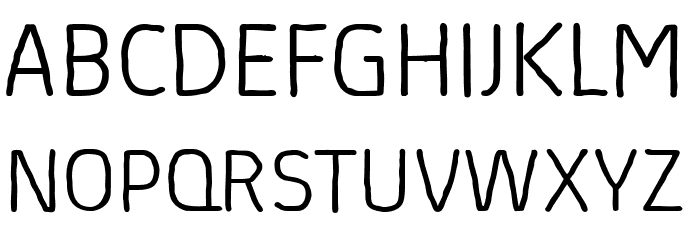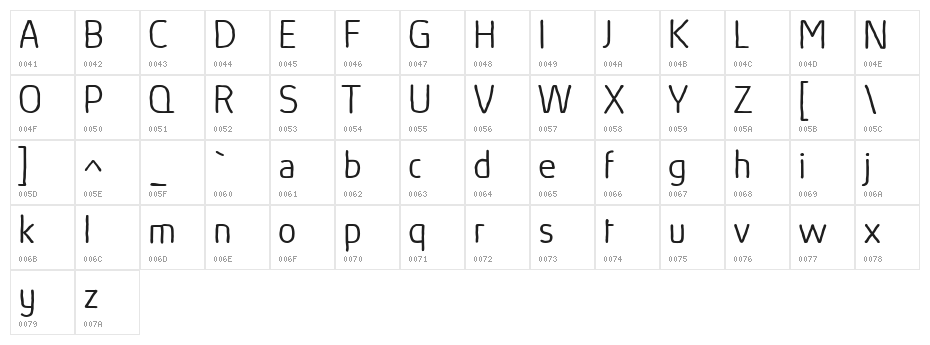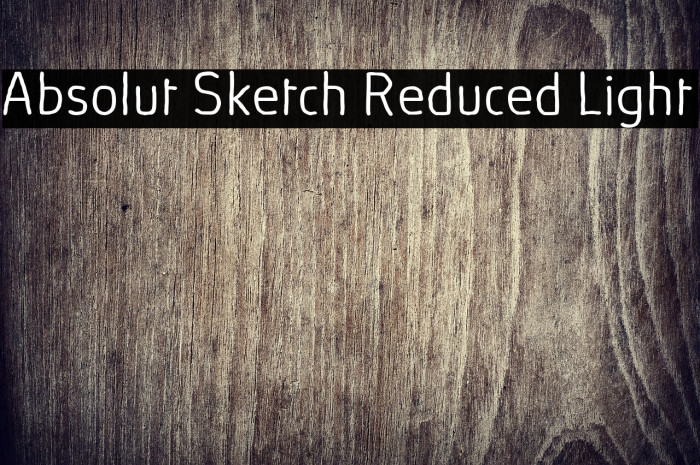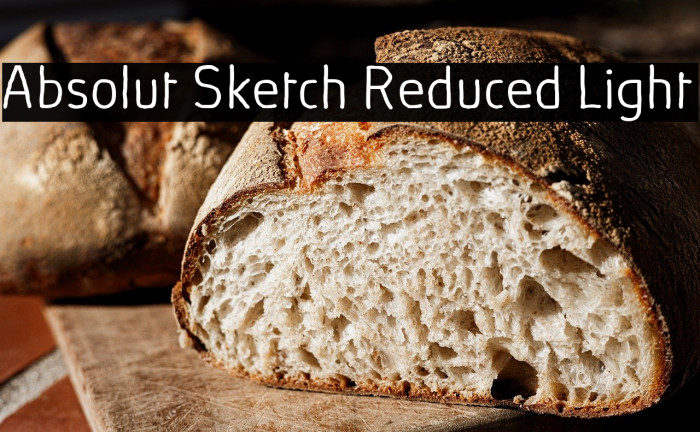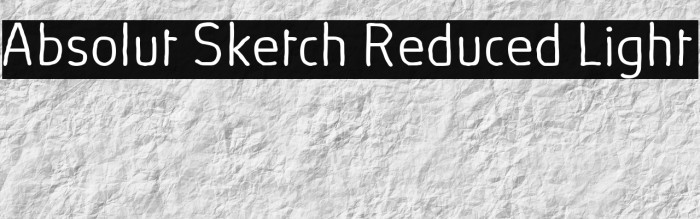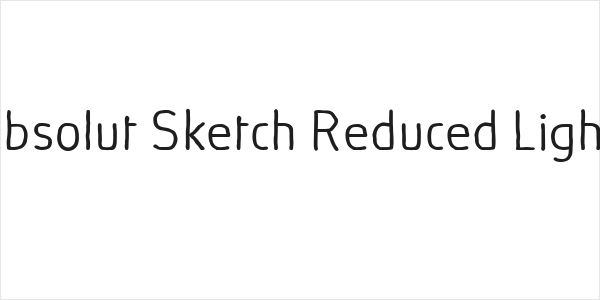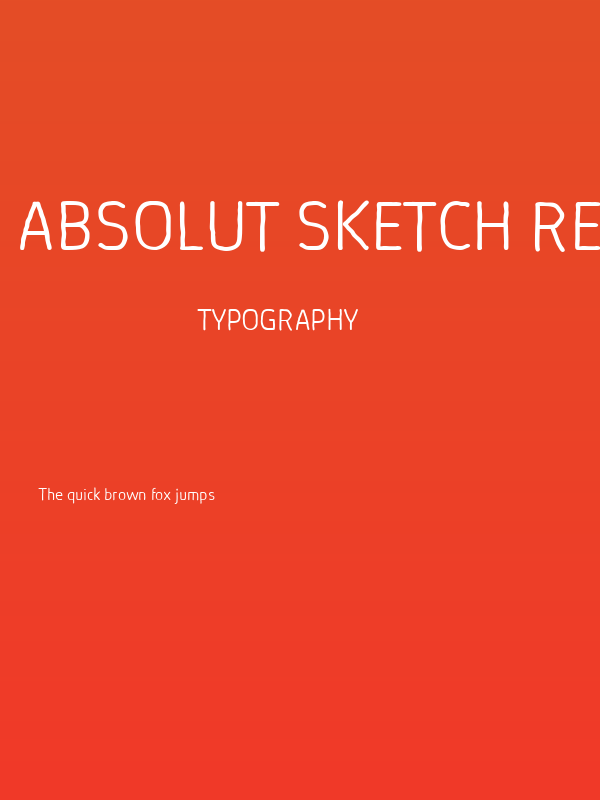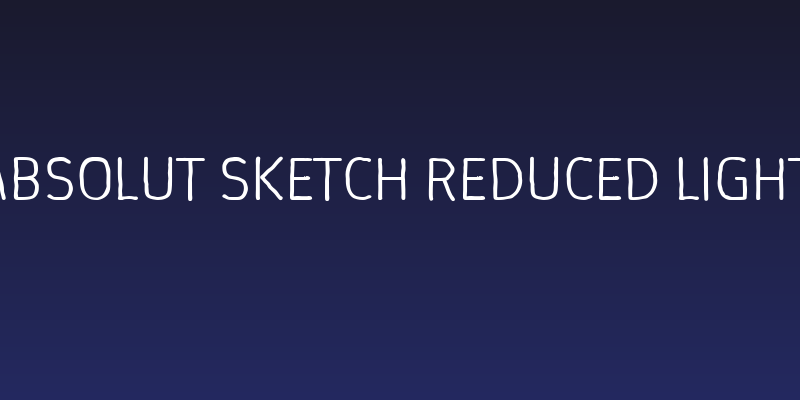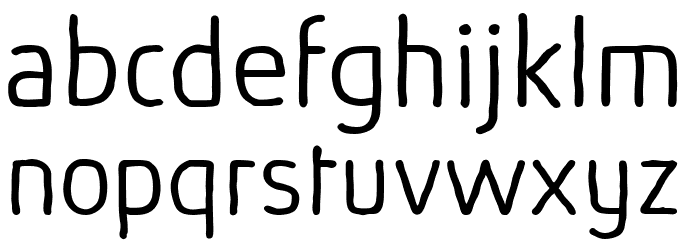
Absolut Sketch Reduced Light Font
Absolut Sketch Reduced Light Description
This font features a hand-drawn, sketch-like appearance with a playful and informal style. The characters are slightly irregular, giving it a whimsical and artistic feel. Each letter has a unique, organic shape, with varying stroke widths that add to its charm. The uppercase and lowercase letters maintain a consistent style, while the numerals and special characters complement the overall design. This font is perfect for projects that require a touch of creativity and individuality, such as children's books, artistic posters, or casual branding. Its distinct style makes it stand out, while still being legible and versatile.
| Use Case | Headlines, Logos, Artistic projects |
| Proposed Projects | Ideal for children's books, artistic posters, casual branding, and creative projects. |